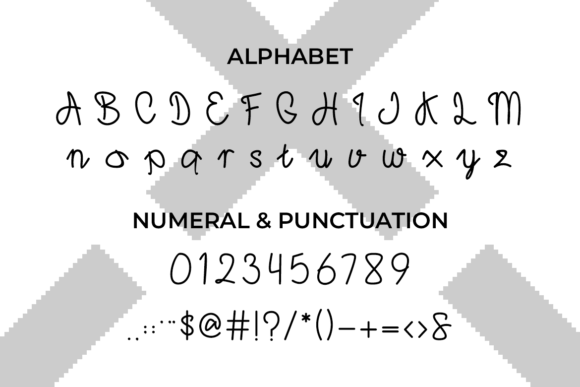
Introducing Amber Street Font: The Fun and Quirky Handwritten Font You Need
Are you tired of using the same old fonts in your designs? Do you want to add a touch of personality and whimsy to your creations? Look no further than Amber Street Font, a fun and quirky handwritten font that’s sure to elevate your font library.
Amber Street Font is a versatile font that’s perfect for designers and crafters of all levels. Whether you’re working on a branding project, creating social media graphics, or designing invitations and party decorations, this font is sure to add a playful touch to your designs.
With its unique and quirky style, Amber Street Font is ideal for:
- Invitations and party decorations
- Blog and website design
- Digital and print marketing materials
What Makes Amber Street Font So Special?
So, what sets Amber Street Font apart from other fonts? Here are just a few things that make it special:
- Handwritten style: Amber Street Font has a unique, handwritten style that’s perfect for adding a personal touch to your designs.
- Quirky and playful: This font has a fun and quirky vibe that’s sure to add some personality to your designs.
- Versatile: Amber Street Font can be used for a wide range of design projects, from branding and packaging to social media graphics and invitations.
- Easily readable: Despite its quirky style, Amber Street Font is still easily readable, making it perfect for use in body text and other applications where legibility is important.
How to Use Amber Street Font in Your Designs
Using Amber Street Font in your designs is easy. Here are a few tips to get you started:
- Pair it with other fonts: Amber Street Font pairs well with a variety of other fonts, including serif and sans serif fonts. Try pairing it with a bold font for headlines and a clean font for body text.
- Use it for titles and headings: Amber Street Font is perfect for use in titles and headings, where its quirky style can really shine.
In conclusion, Amber Street Font is a fun and quirky handwritten font that’s sure to elevate your font library. With its unique style, versatility, and ease of use, it’s the perfect addition to any designer’s or crafter’s toolkit. Whether you’re working on a branding project, creating social media graphics, or designing invitations and party decorations, Amber Street Font is sure to add a playful touch to your designs.